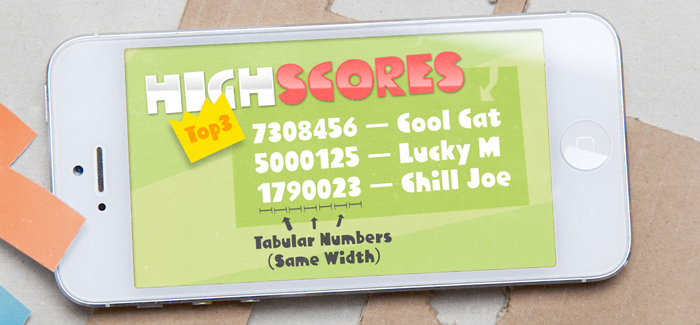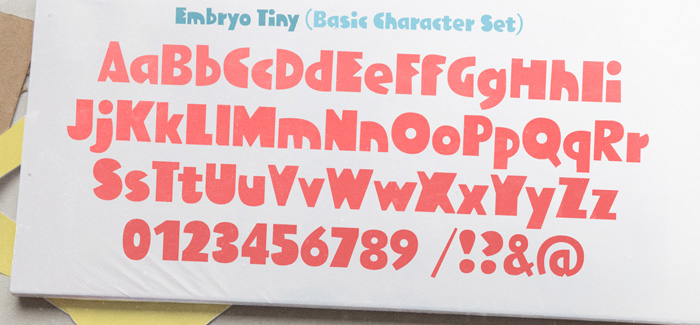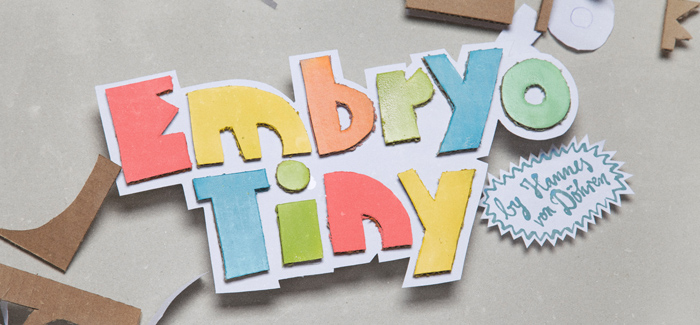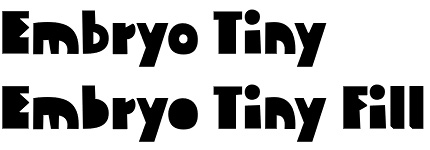
Embryo Tiny
Embryo Tiny font is a hot new release by HVD Fonts. Based on existing Embryo and Embryo Open it has same overall look, but with far more improved readability especially when used in small sizes. Carrying the spirit of joy and happiness Embrio Tiny has fat and cute naive looking letterforms perfect for children books, games and toys, playful posters, logos and t-shirts. It’s equipped with standard ligatures and wide array of multilingual diacritics. Combines perfectly with outlines and shadows.